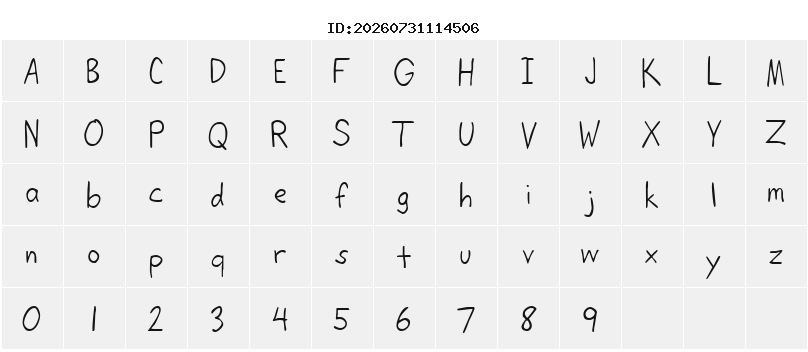
Lifetime Preview
• Font Name: Lifetime
• Full Font Name: Lifetime
About Lifetime.ttf
Lifetime.ttf is a modern, elegant sans-serif font designed for ultimate readability and visual harmony. Perfect for branding, headlines, web design, and print materials.